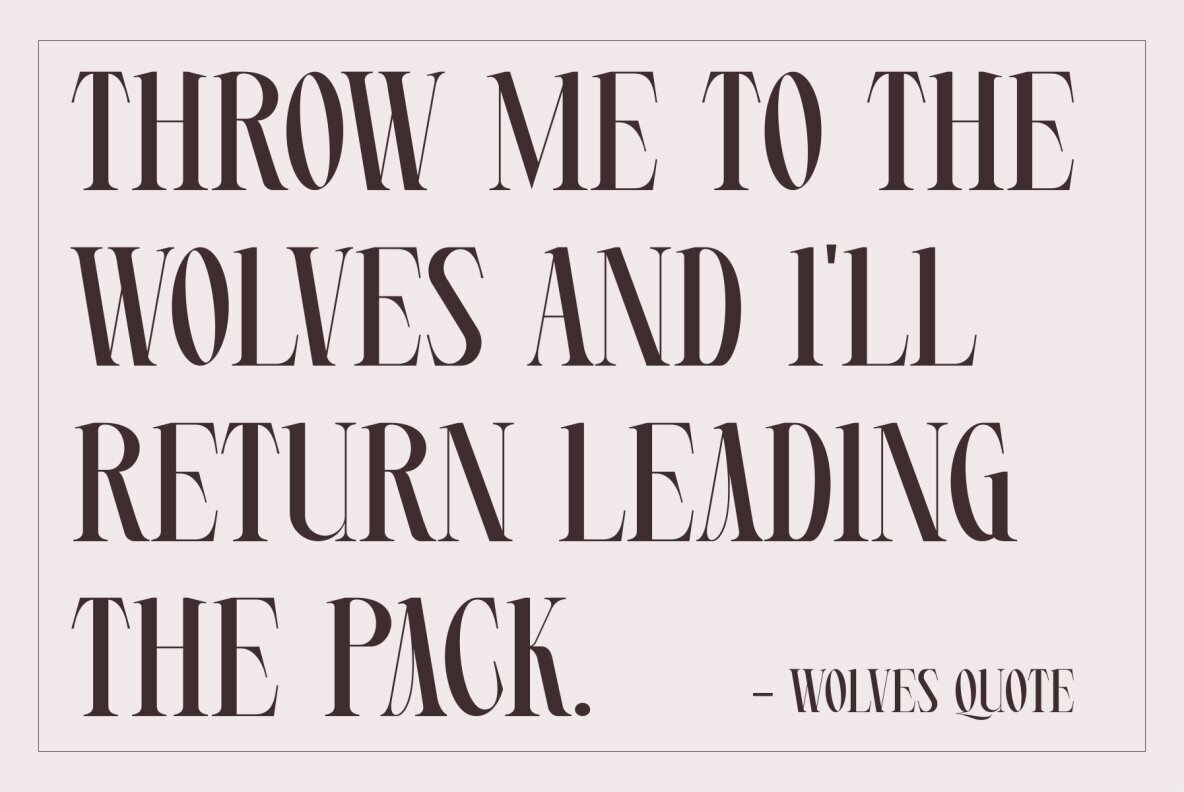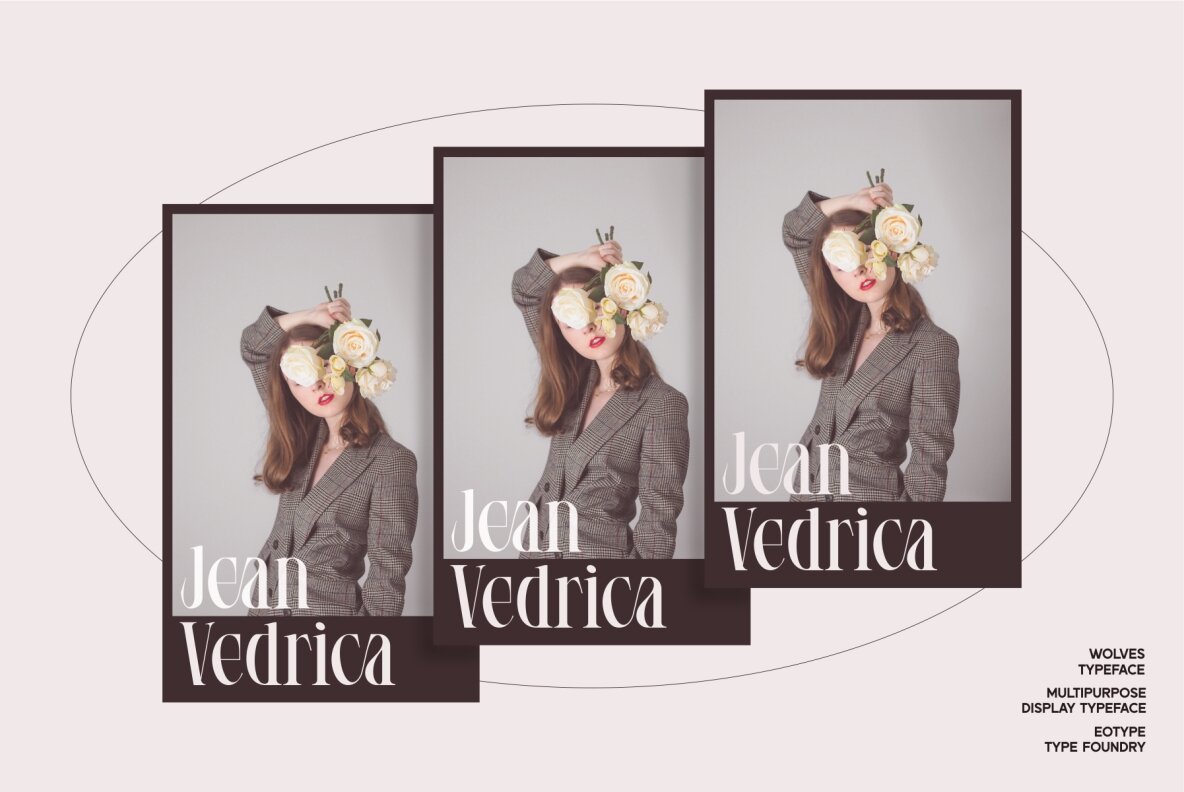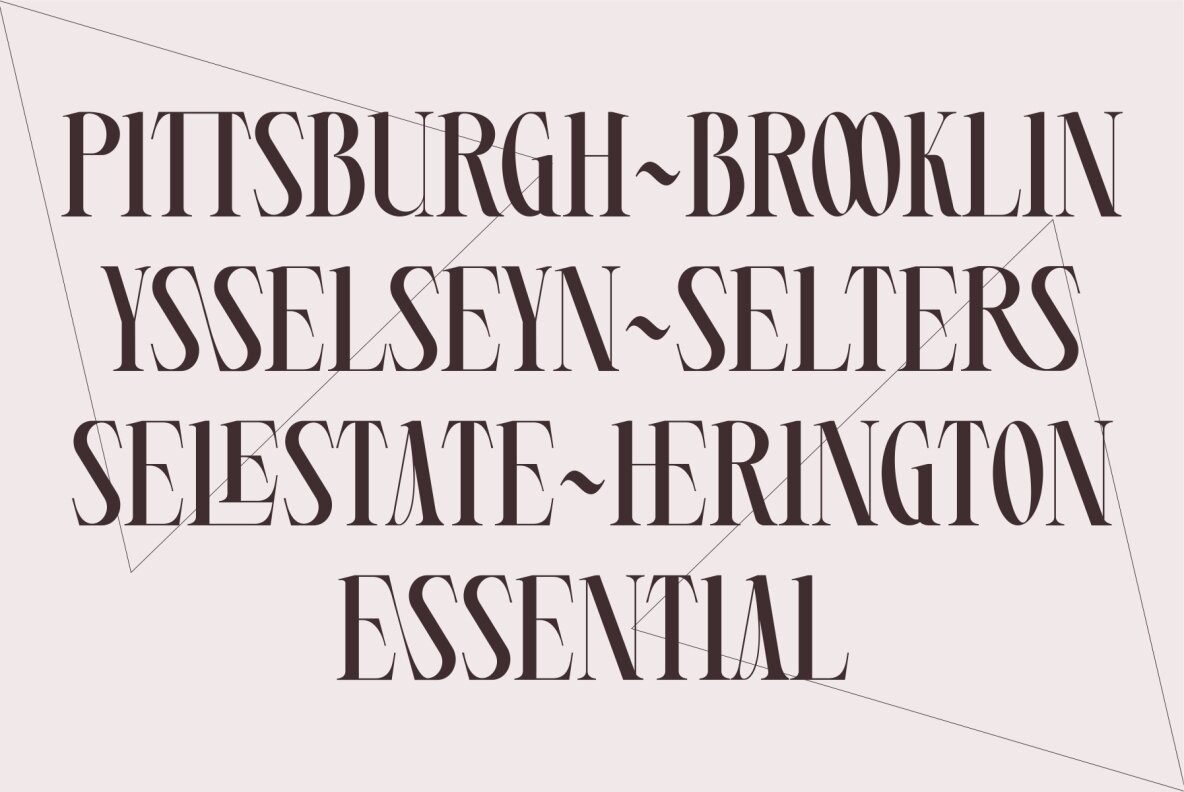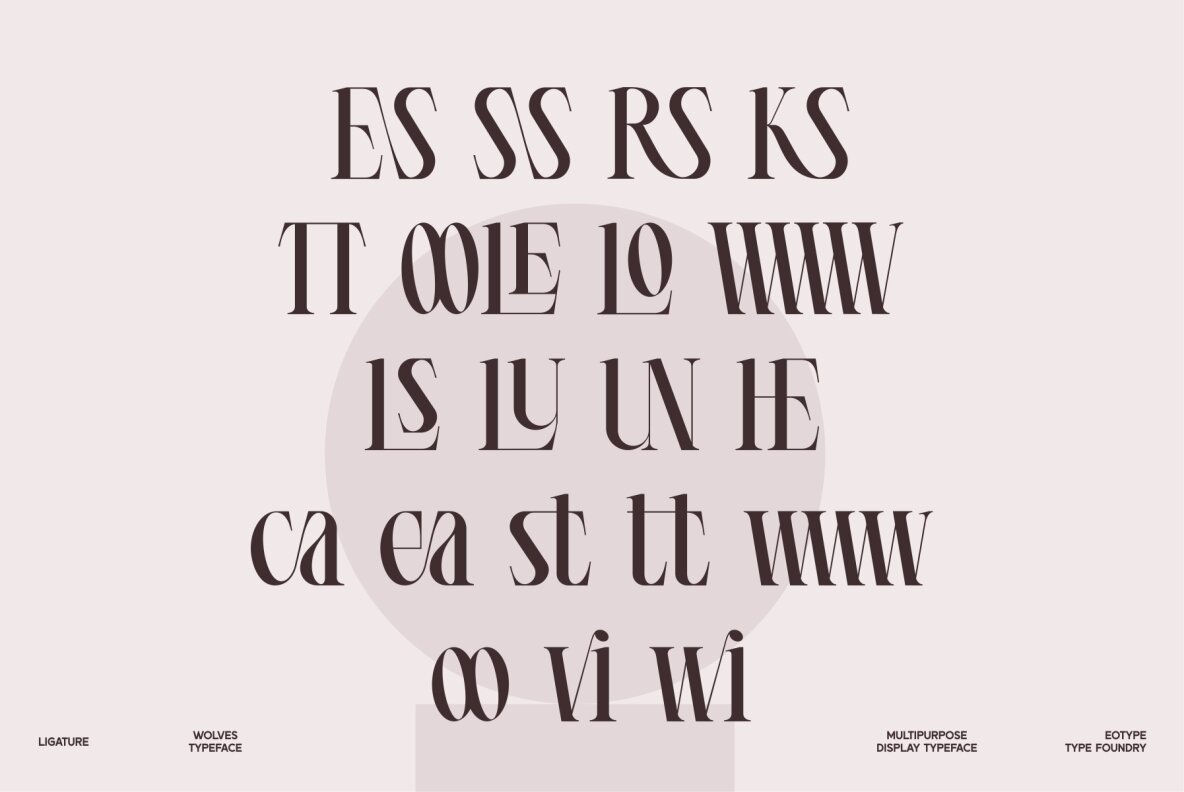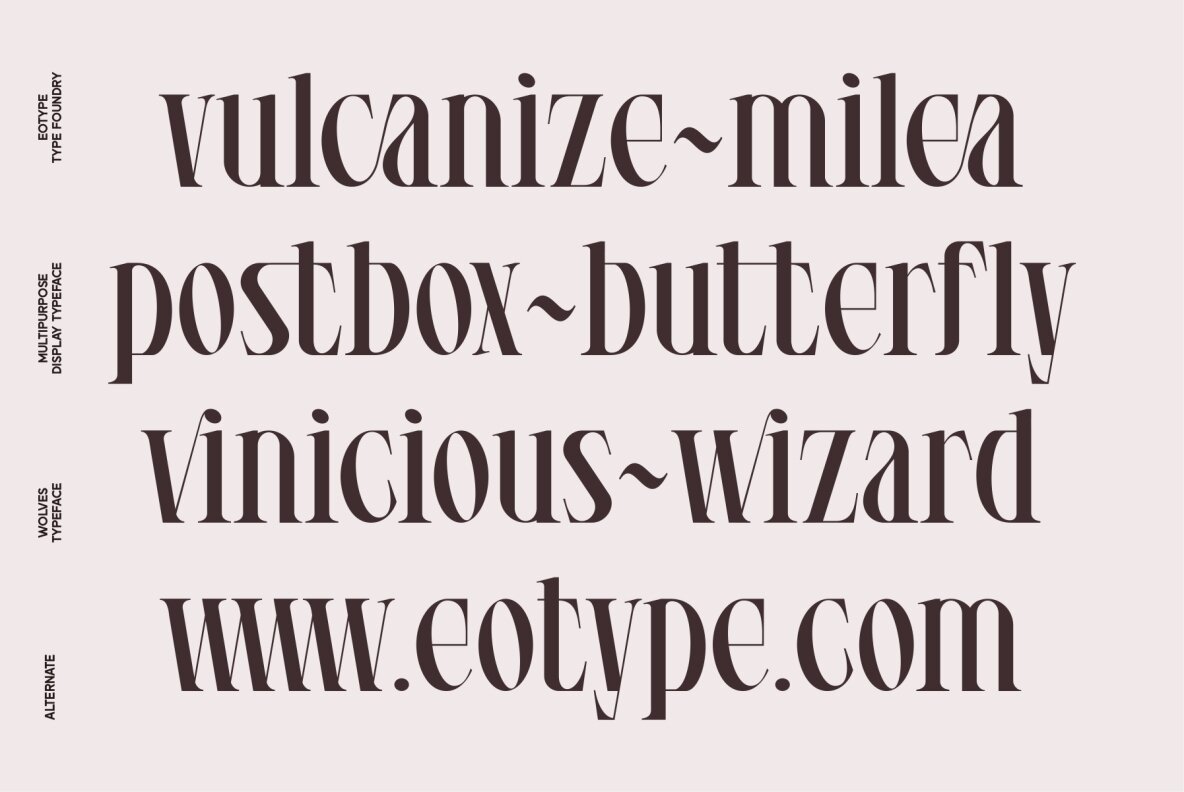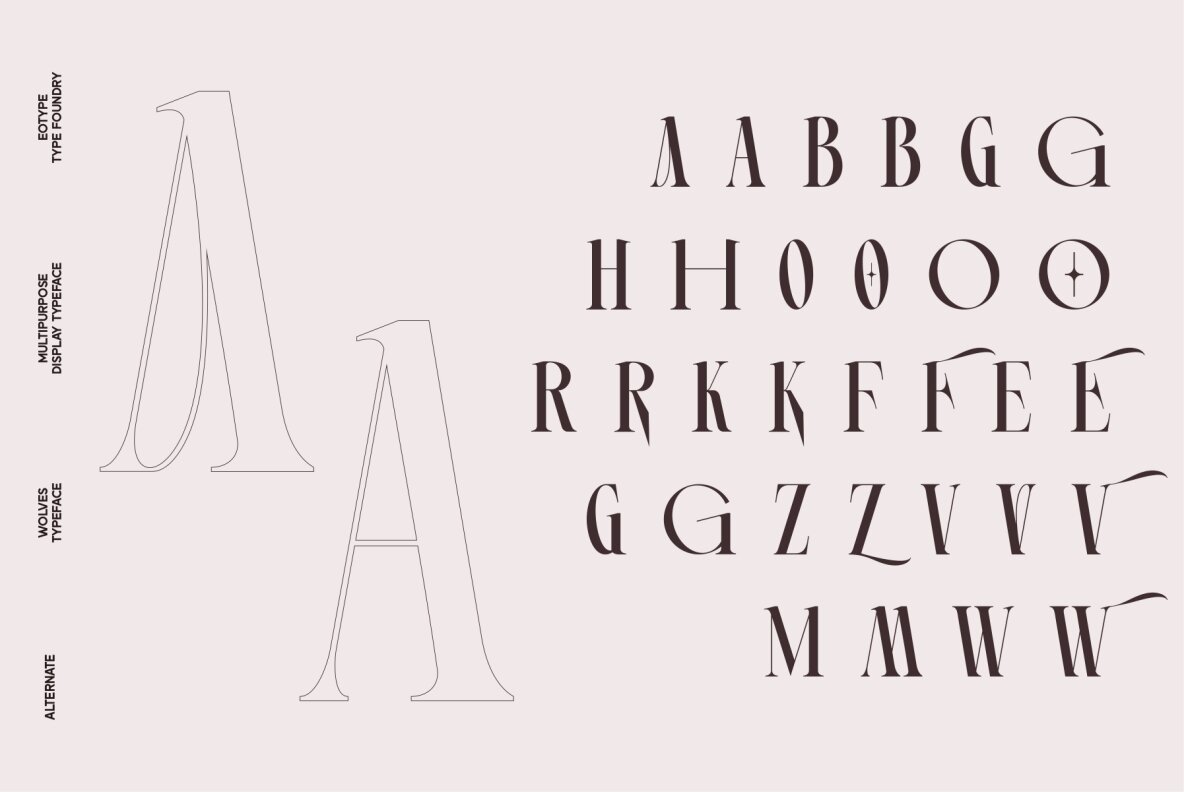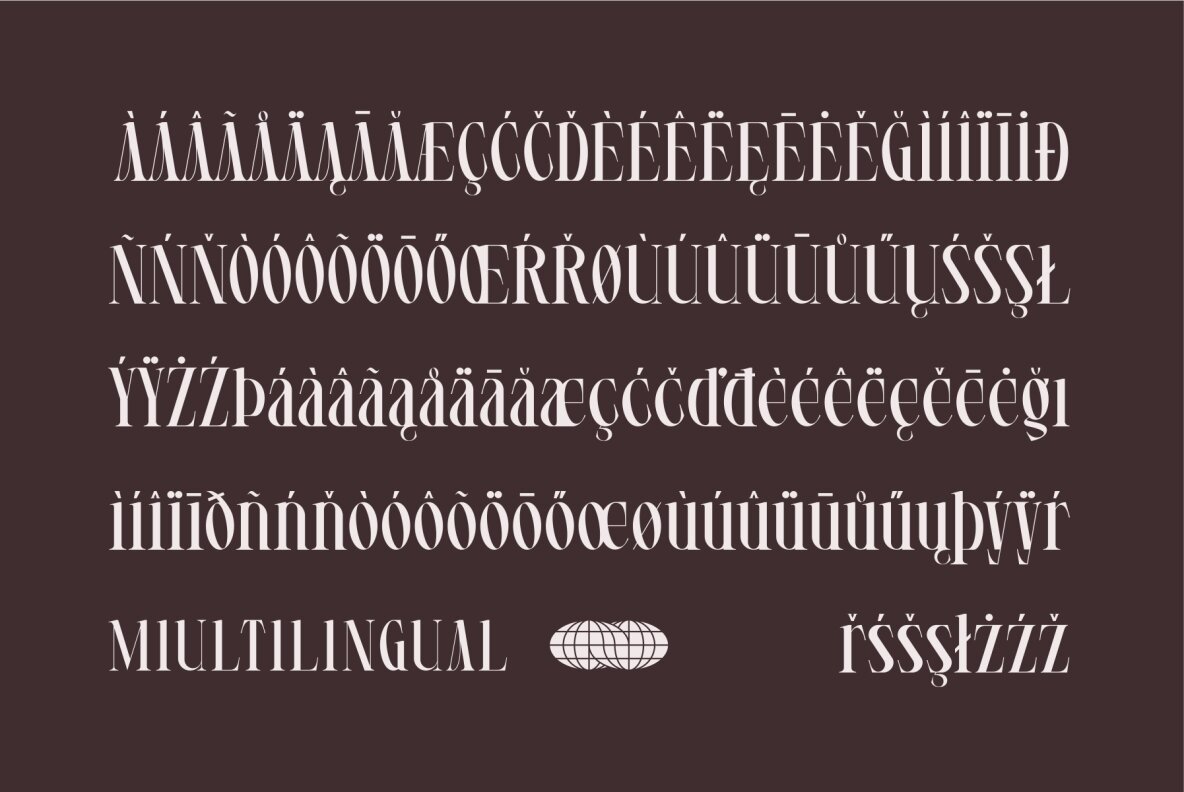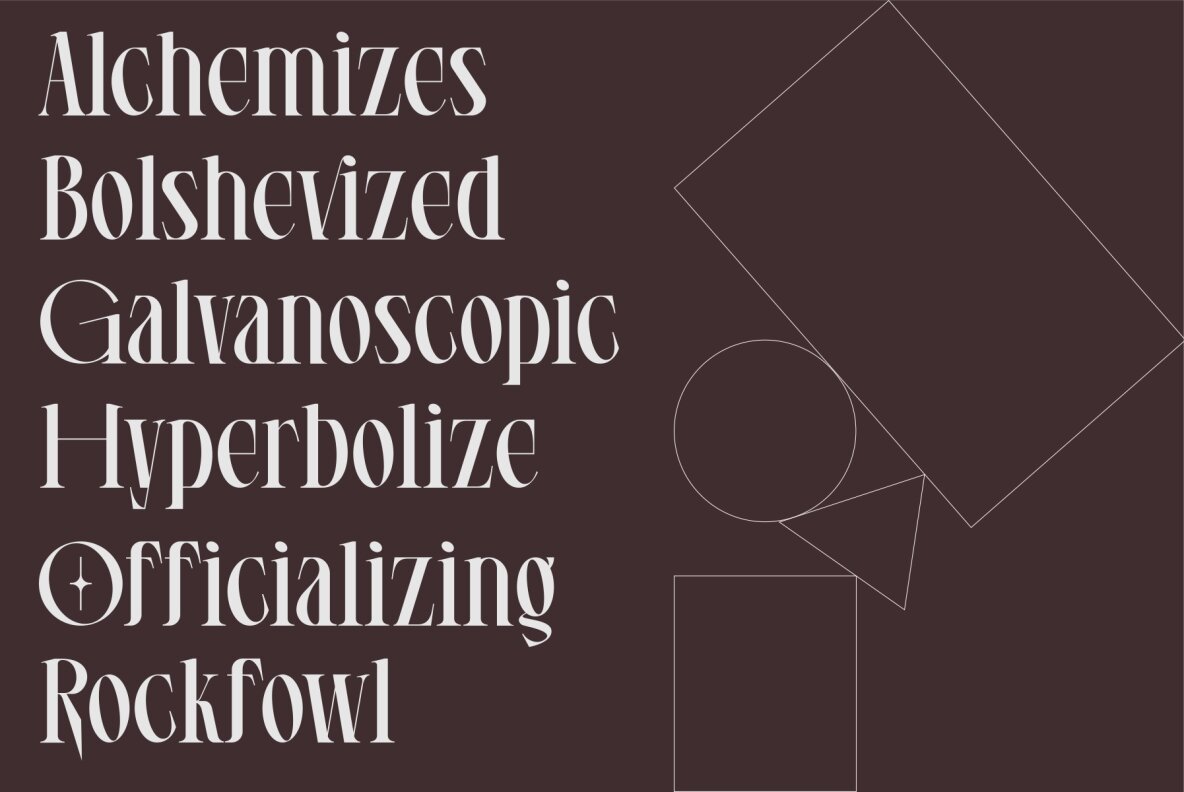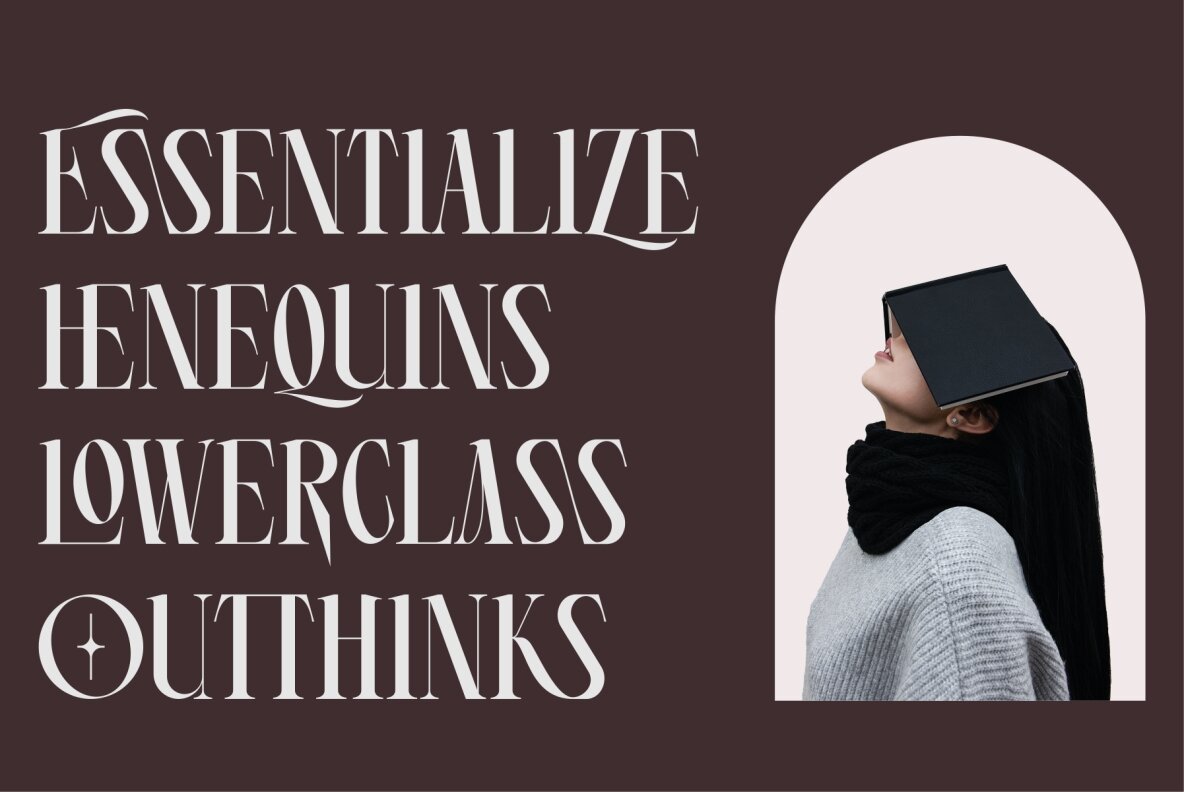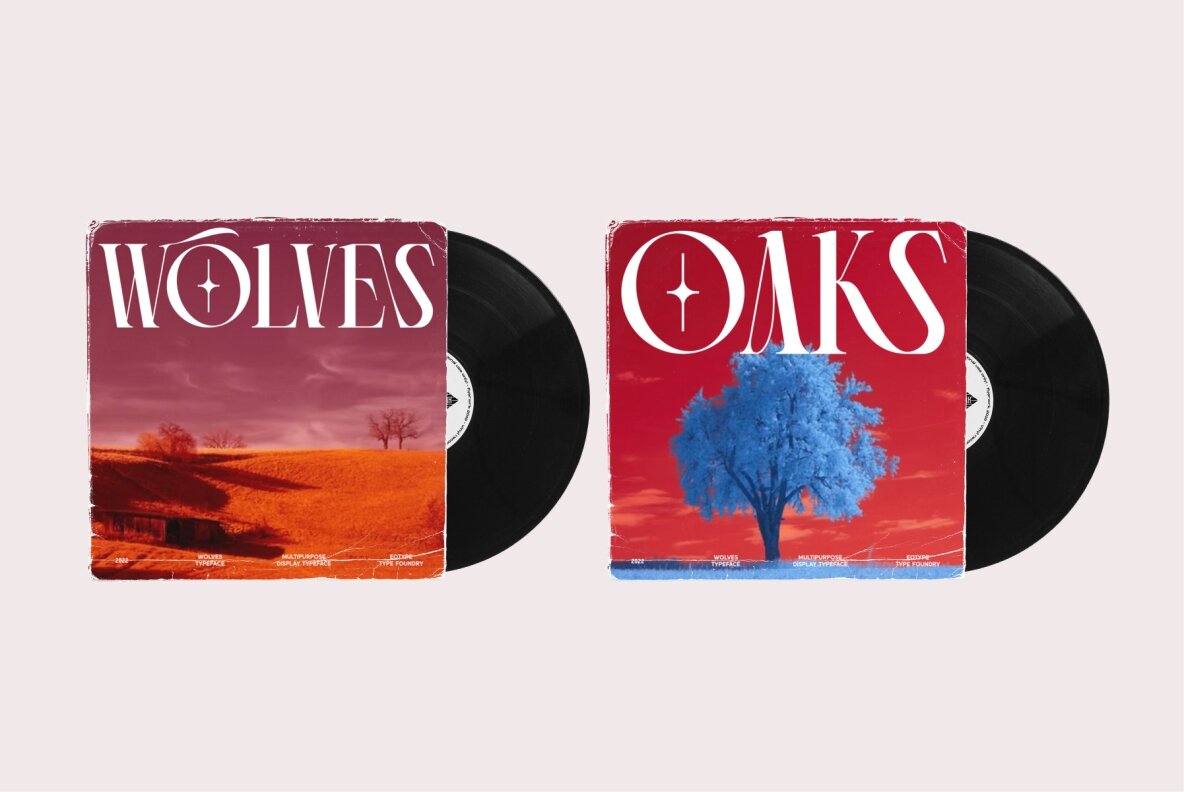
Wolves: Elegant Serif Condensed Font
Wolves by eotype Studio stands out as a sleek and condensed serif font, tailored for professional versatility. Ideal for projects aiming for refined aesthetics, its design caters to both modern and ornate applications. This font seamlessly fits diverse creative ventures, offering a unique touch to every project it graces.
• Ligatures and Alternatives – Enhances creative flexibility.
• Versatile Application – Suitable for branding, posters, logos, magazine covers, and product labels.